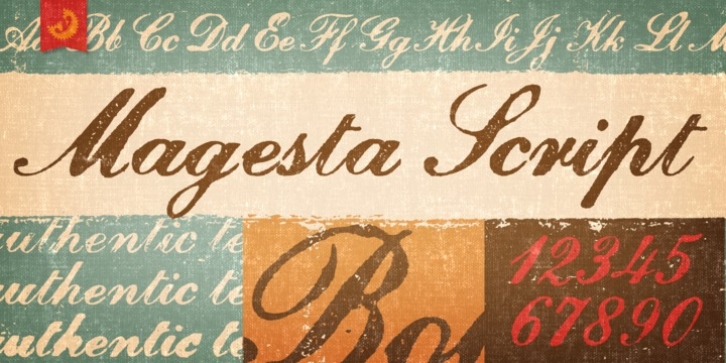
The Magesta Script family by Yellow Design Studio is a set of four retro script fonts that capture the warm, authentic qualities of letterpress printing. Light, Regular, and Bold weights were created using different levels of ink coverage, while Mix is a combination of all three. The texture and slight misalignment add to its realism and vintage charm.